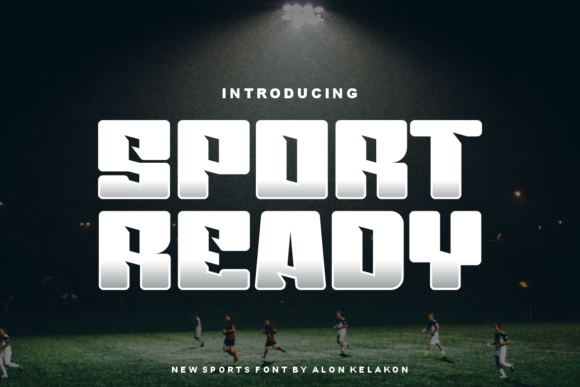
Unleash the Thrill of Action with Sport Ready Font: The Ultimate Gateway to Dynamic Designs
In a world where visual impact reigns supreme, your designs need to pack a punch that resonates with your audience. Introducing Sport Ready Font, the game-changing display font that propels your creations into the realm of adrenaline and excitement. Prepare to witness the convergence of athletic prowess and typographic artistry as Sport Ready Font takes center stage, ready to ignite your imagination and leave an indelible mark on the minds of your viewers.
Crafted with meticulous precision and an unwavering commitment to excellence, Sport Ready Font embodies the very essence of athleticism and adventure. Its bold and commanding strokes evoke the raw energy of the playing field, capturing the essence of competition and the pursuit of victory. Whether you're designing sports apparel, creating movie posters that pulse with excitement, or crafting album covers that reverberate with rhythm, Sport Ready Font is your ultimate weapon.
Beyond its undeniable athletic charm, Sport Ready Font possesses an unexpected versatility that defies categorization. Its robust character lends itself effortlessly to a myriad of design applications, from sleek logos and eye-catching posters to captivating movie titles and awe-inspiring gig posters. Unleash your creativity and explore the boundless possibilities as Sport Ready Font transforms your designs into captivating masterpieces, sure to leave your audience breathless.
As you delve into the world of Sport Ready Font, you'll discover a treasure trove of opportunities to elevate your designs to new heights. Its bold presence commands attention, while its carefully crafted curves and sharp angles create a sense of movement and energy that�動感�エ�ルギーを醸�出���. Whether you're a seasoned designer or just starting your creative journey, Sport Ready Font empowers you to craft designs that resonate with your audience, leaving a lasting impression that lingers in their minds long after they've encountered your work.
Embrace the thrill of victory and conquer the world of design with Sport Ready Font. Its dynamic spirit and undeniable charm will ignite your imagination and propel your creations to the forefront of excellence. Unleash the power of Sport Ready Font today and experience the exhilaration of creating designs that truly move your audience.